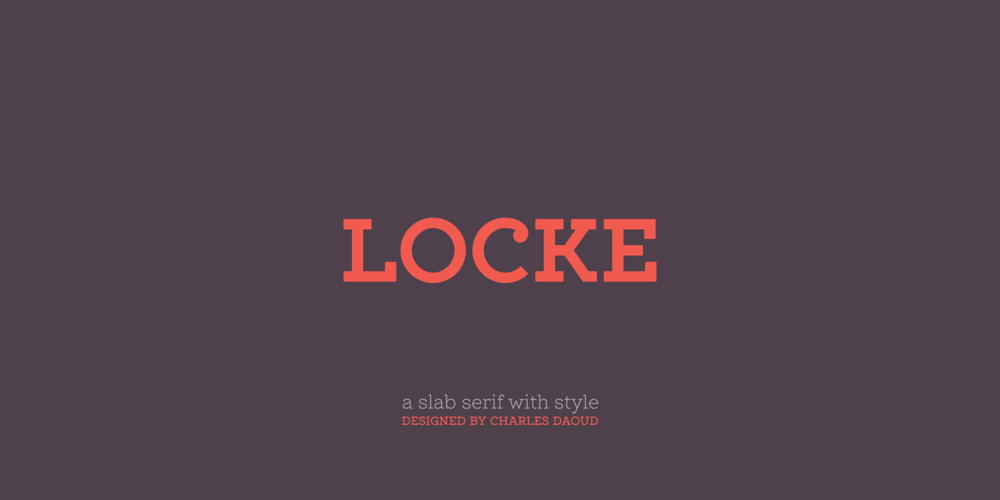
Locke
Locke font
Locke Font Family was designed by Charles Daoud and published by North Type. Locke contains 6 styles and family package options. Locke is a stylish slab serif with a modern twist. Currently, it has 6 weights, ranging from ExtraLight to Bold. The presence of ball terminals on certain glyphs and its unusually high x-height give it a unique look, perfect for large titles or body copy. Locke has extensive multi-language support, counting over 390 glyphs per weight. Try out Locke Regular for free!